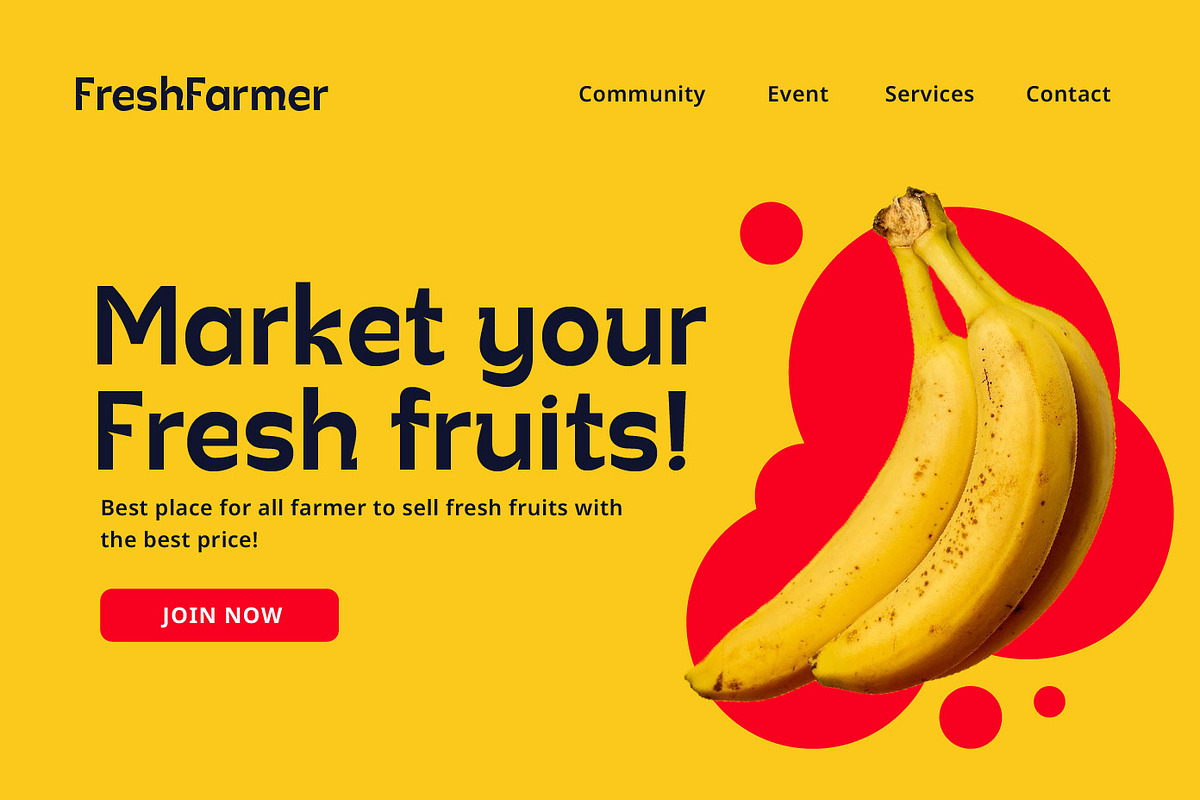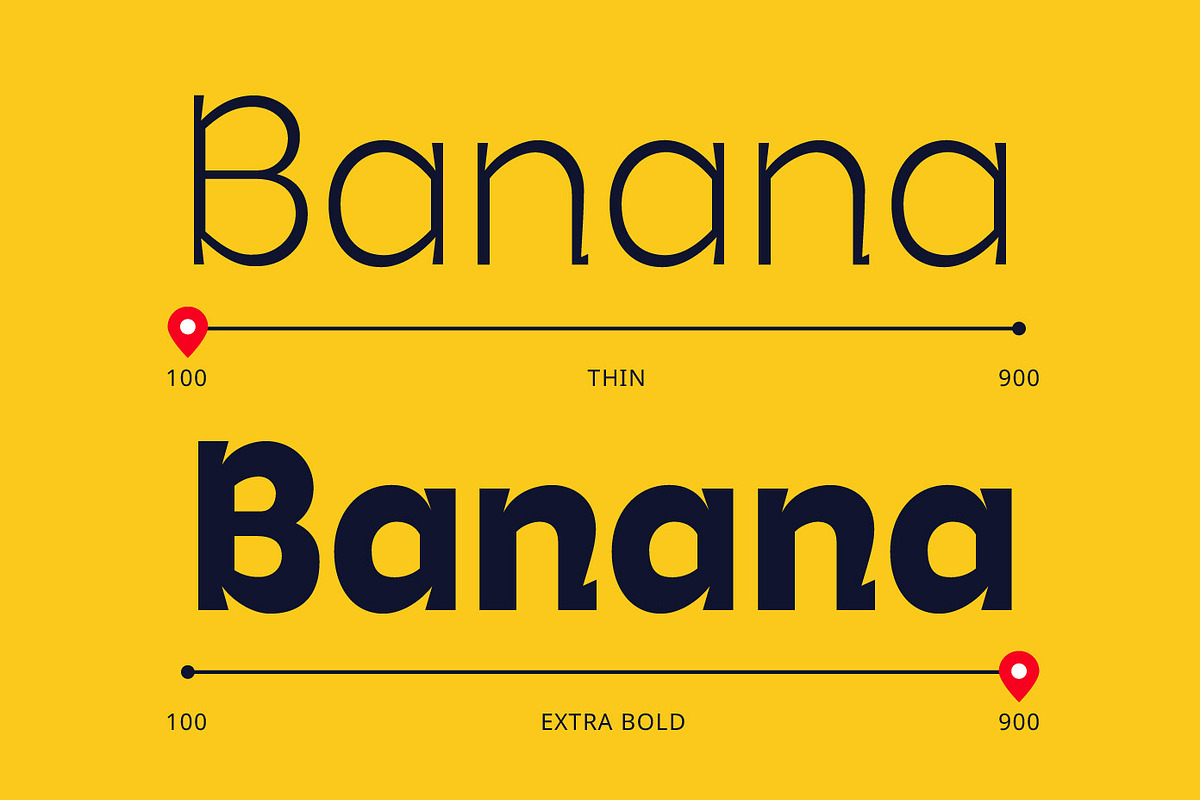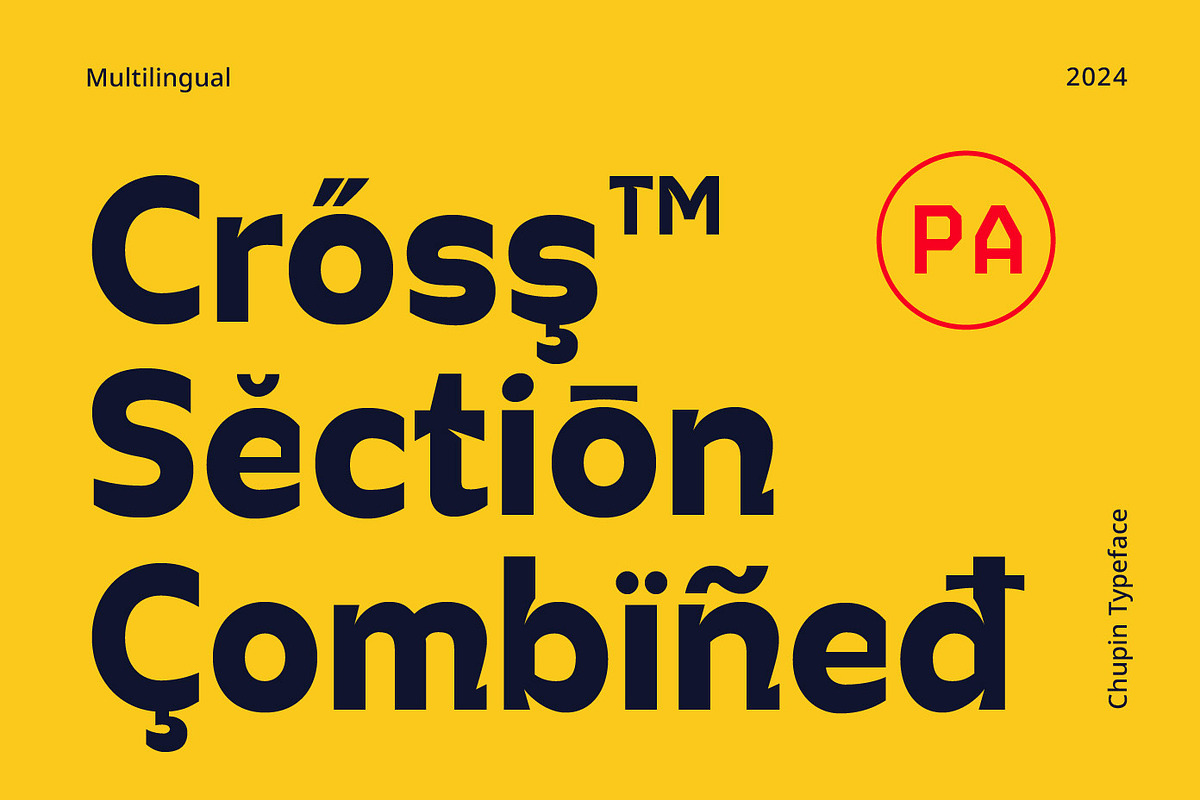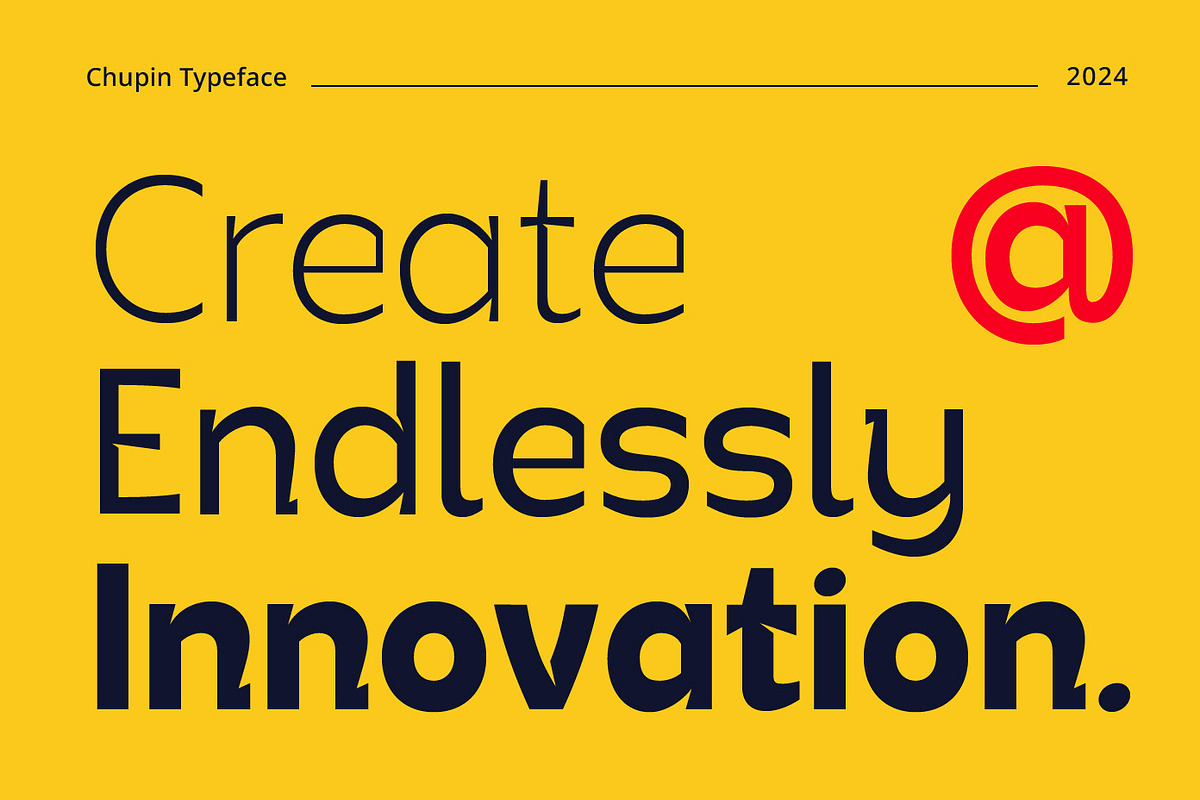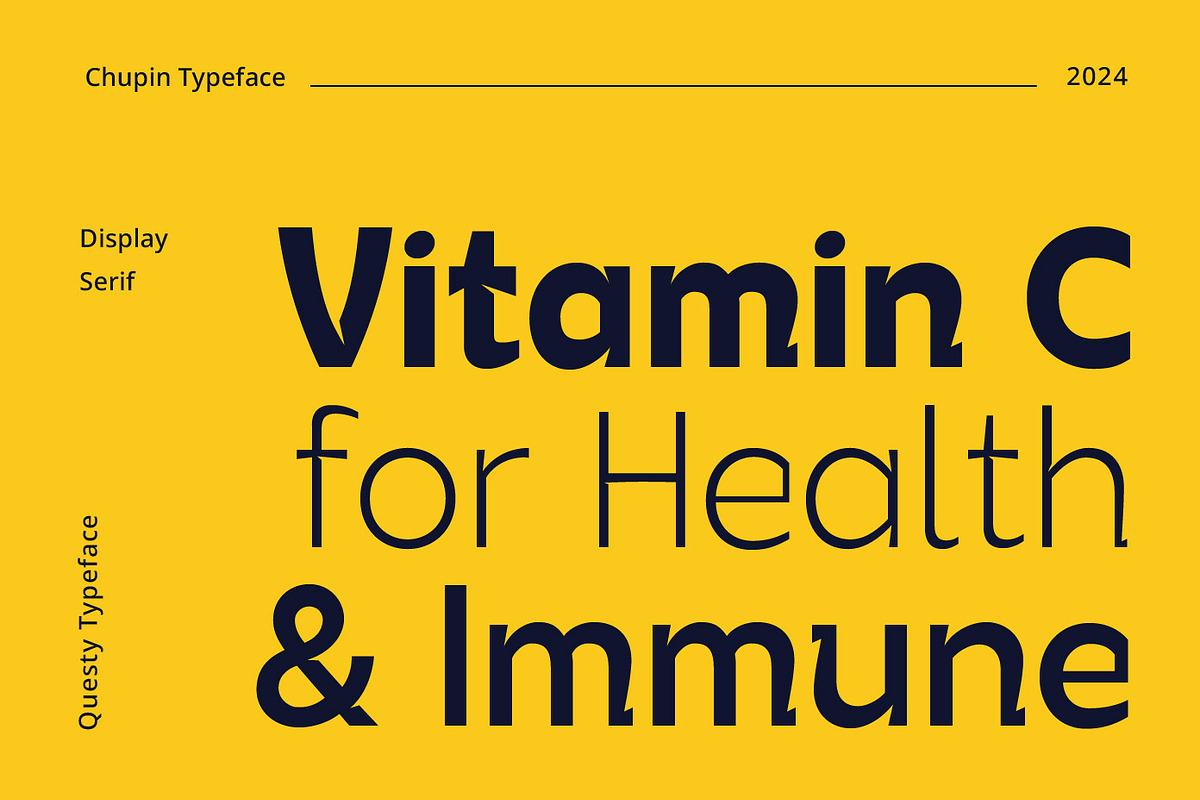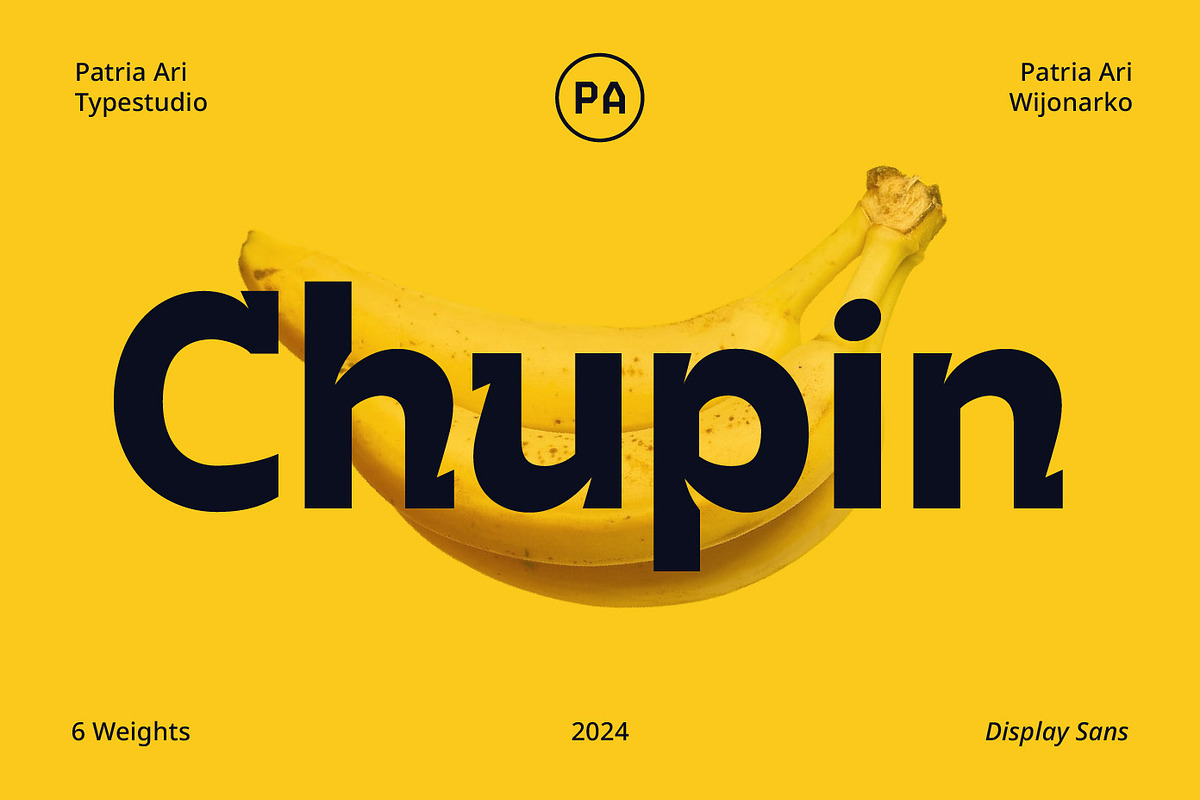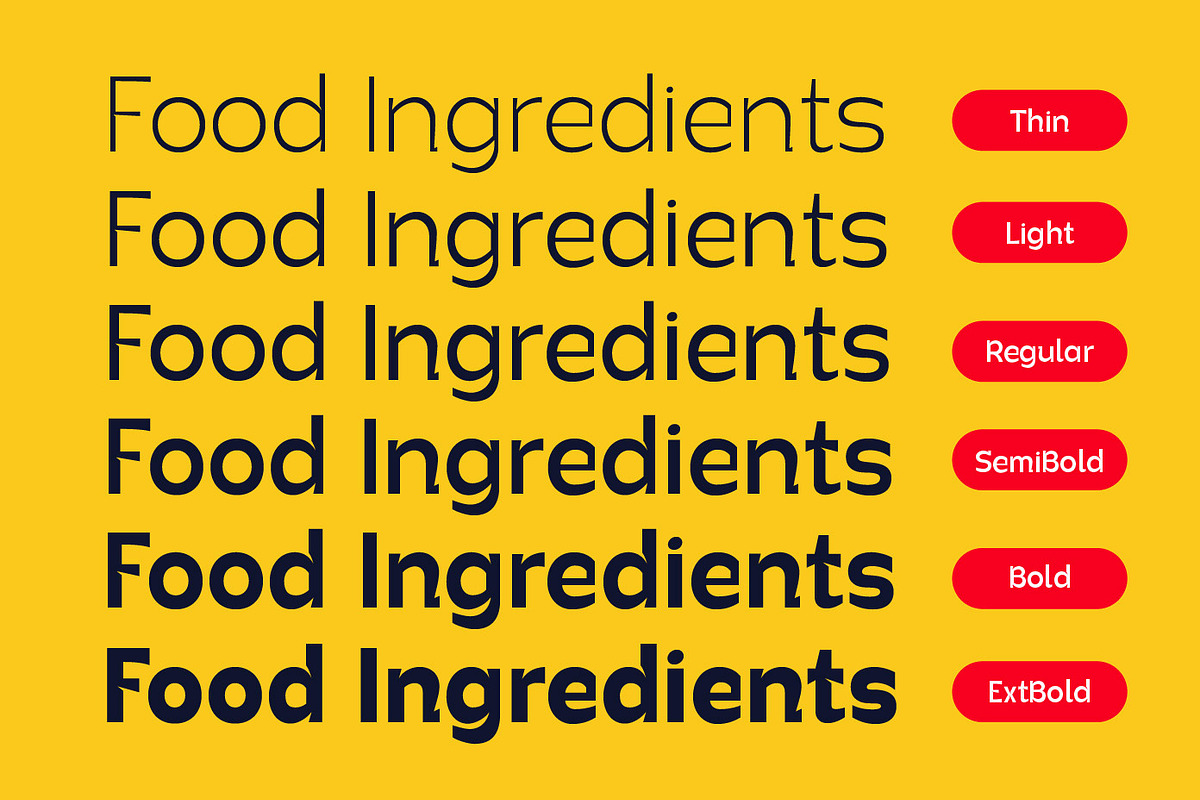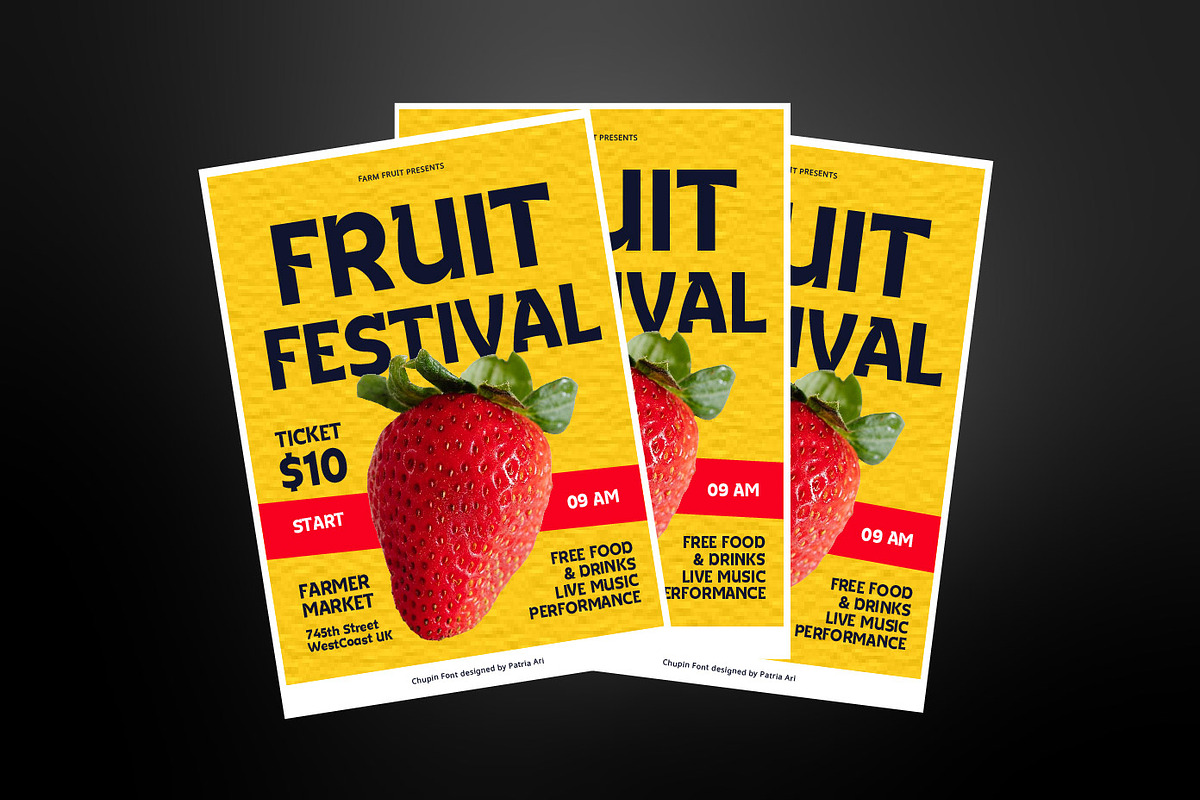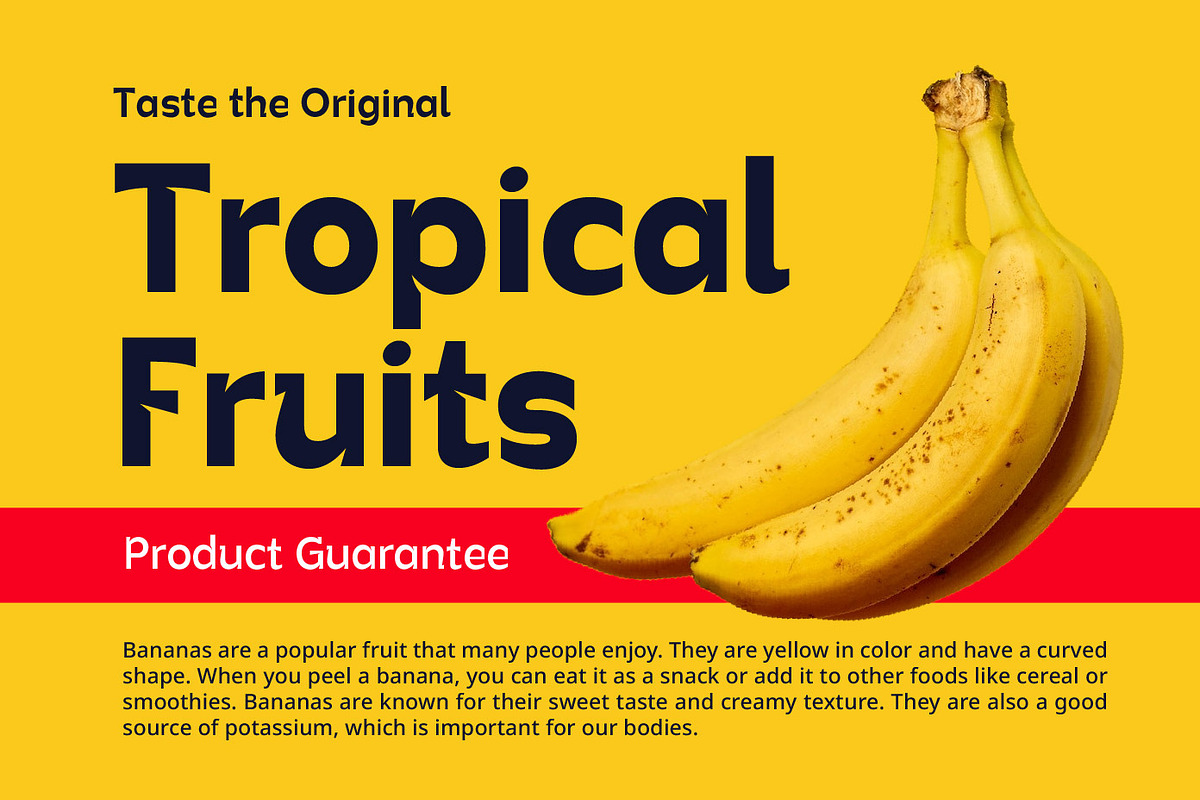
Chupin Display Sans
Chupin is a modern sans font, infused with elements of classic and traditional style, seamlessly blends contemporary aesthetics with timeless elegance. Characterized by clean lines and simple shapes, the font maintains a modern appeal. Yet, the incorporation of classic and traditional elements adds a subtle touch of sophistication and heritage. This harmonious combination results in a font that exudes both modernity and enduring style, making it a versatile choice for design projects that seek to strike a balance between the contemporary and the timeless.